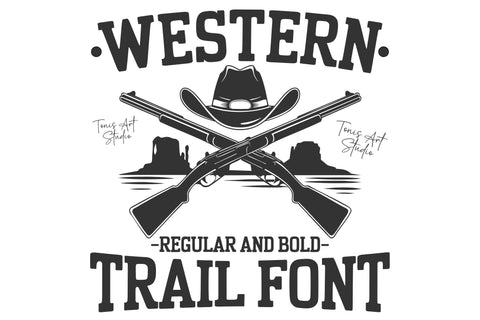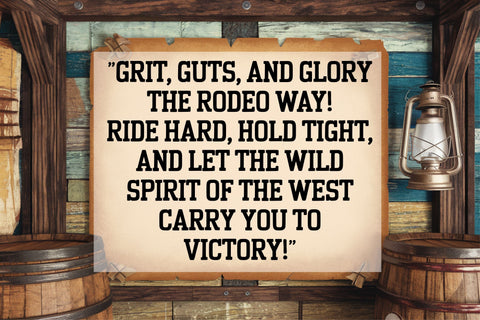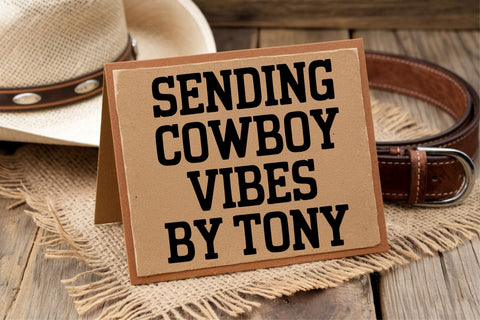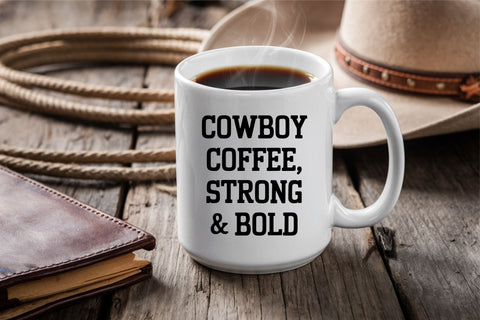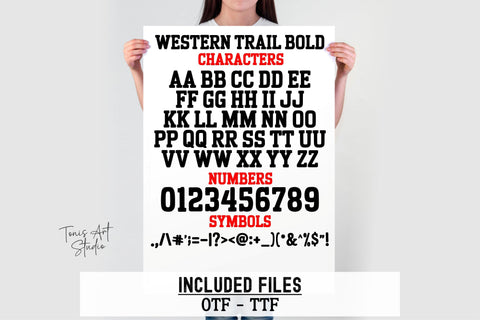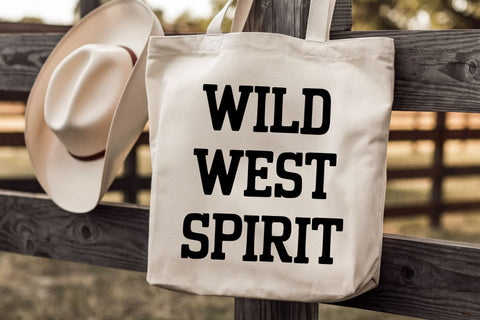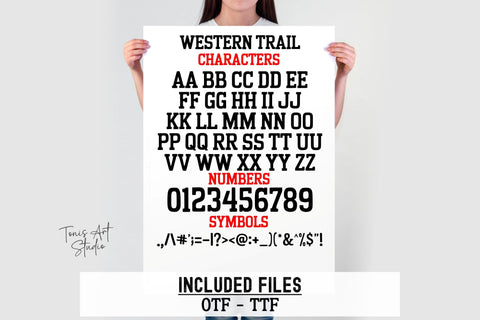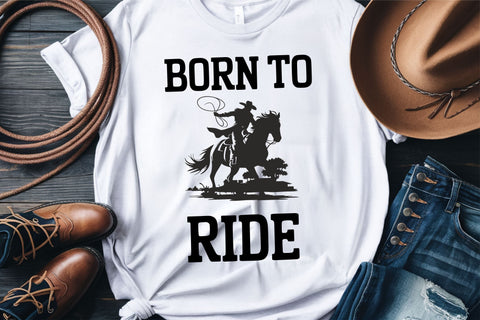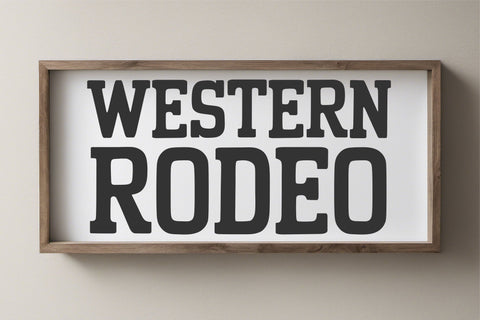
Western Trail Font Duo | Cowboy Rodeo & Wild West Typeface
The Western Trail Font Duo features Western Trail Regular and Western Trail Bold, designed for cowboy branding, rodeo graphics, and Wild West designs. Whether you’re creating rustic farmhouse signs, rodeo t-shirts, or saloon posters, this font duo delivers an authentic Western aesthetic with two distinct styles for bold, high-impact designs.
This vintage cowboy typeface is perfect for Cricut, Silhouette, sublimation, digital designs, DIY crafting, and country-inspired branding. The bold and rugged look makes it ideal for Western apparel, cowboy party invitations, rustic home decor, and sublimation projects.
✔ Western Trail Regular – Classic Wild West style font
✔ Western Trail Bold – Strong, vintage cowboy typeface
✔ Full Alphabet (A-Z), Numbers, and Symbols